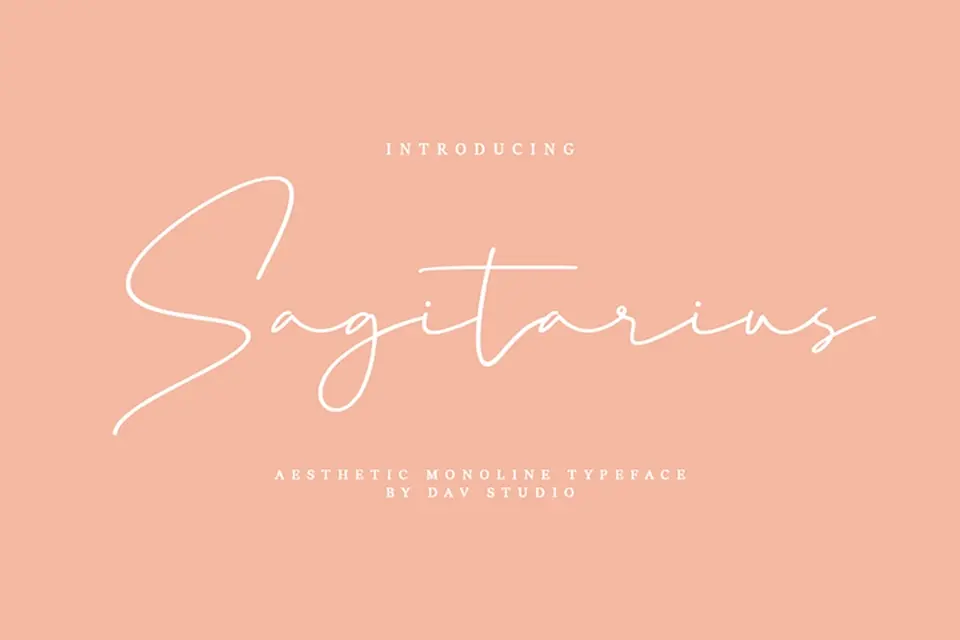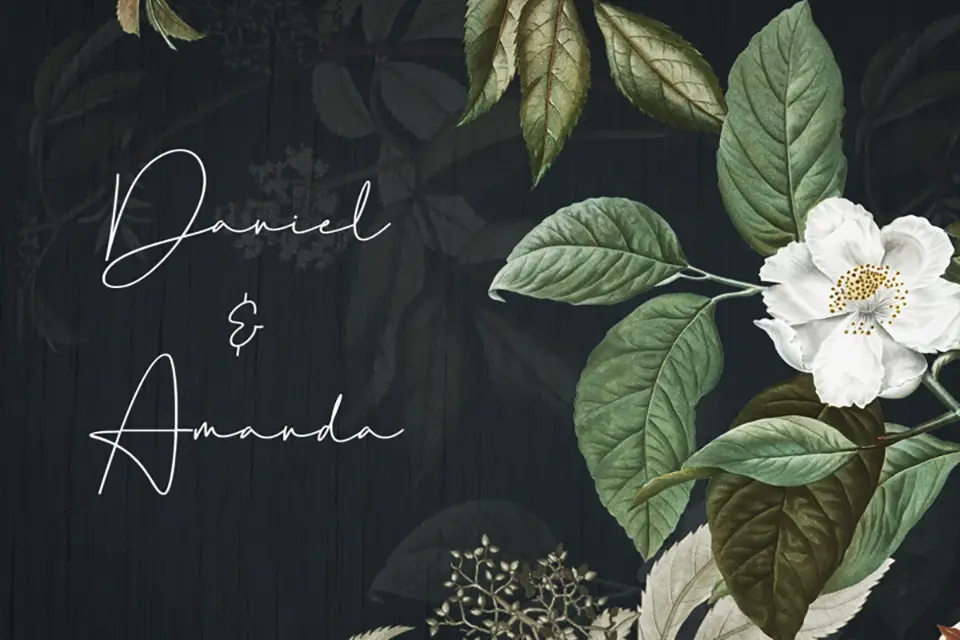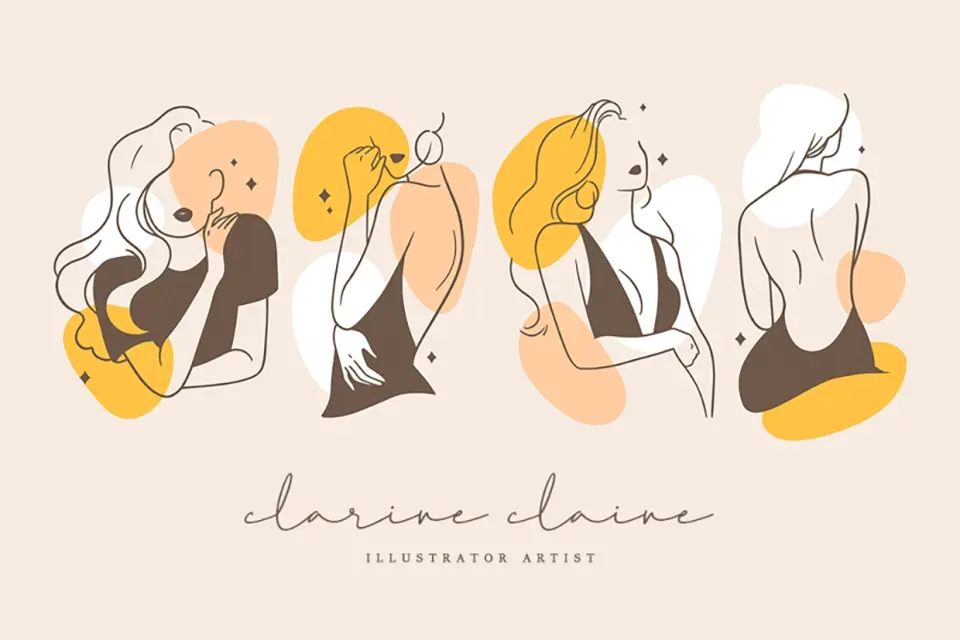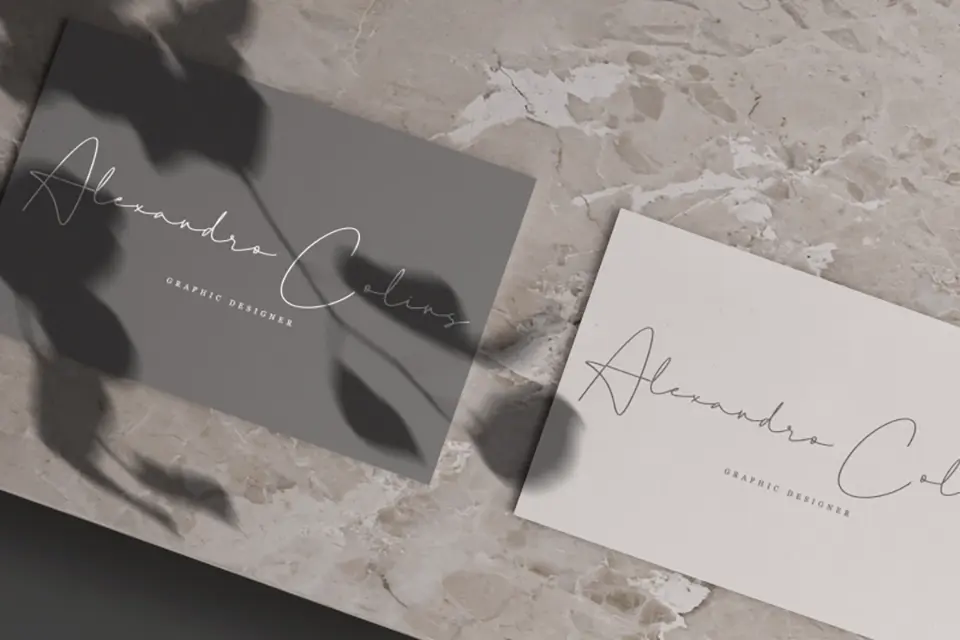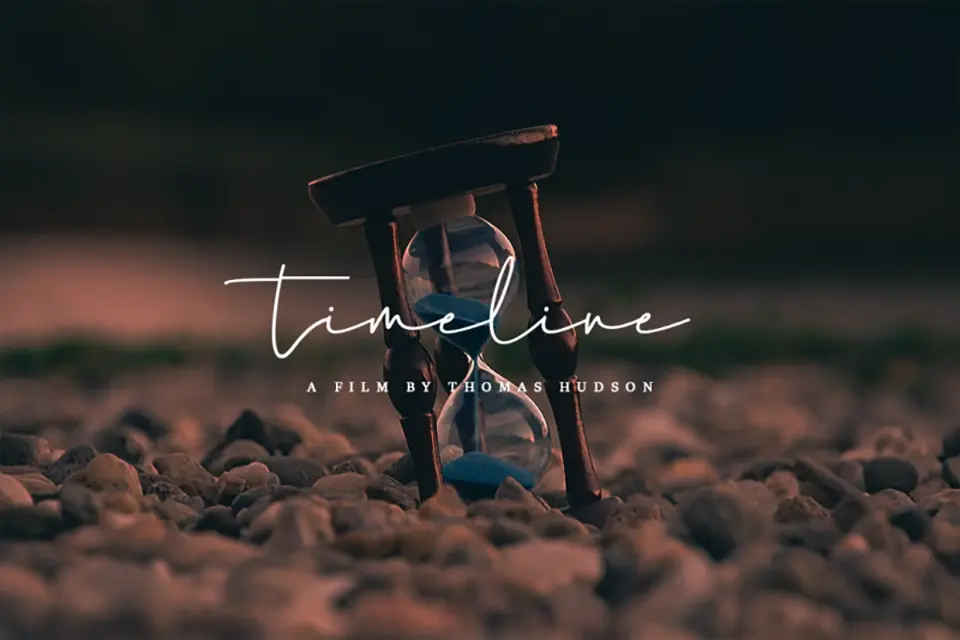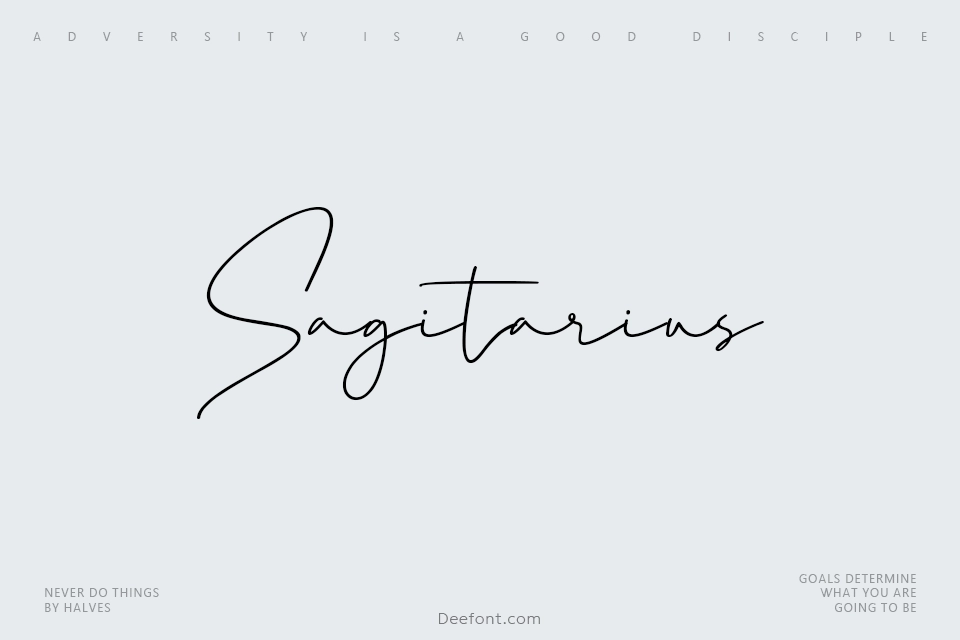
Sagitarius Font
Sagitarius is an elegant aesthetic monoline script font designed by Dav Studio, featuring graceful handwritten characteristics perfect for typography projects. With its sleek and modern design, this font excels in creating sophisticated displays for logos, packaging, invitations, and social media designs, combining contemporary aesthetics with timeless appeal for creative professionals.